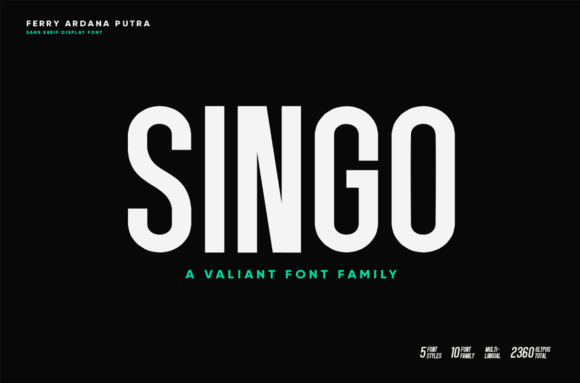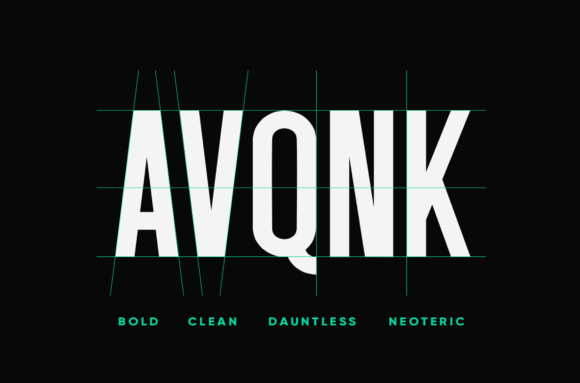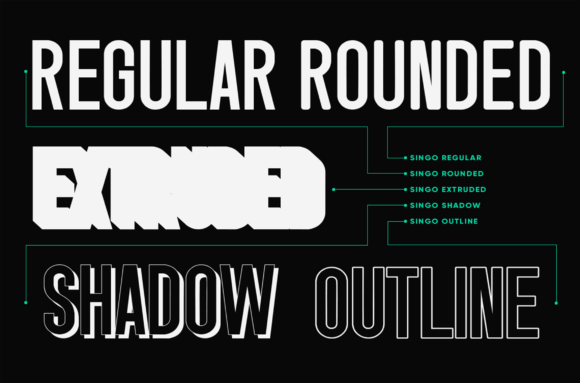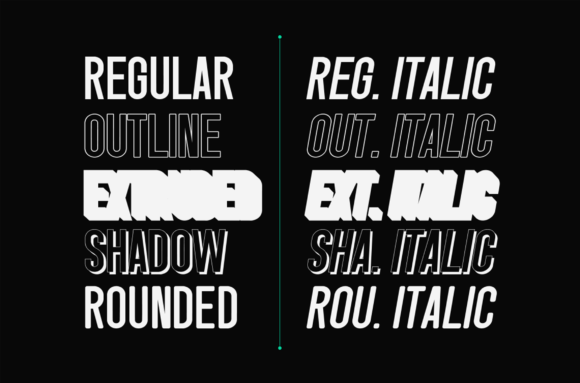
Singo Font: A Bold Sans Serif for Logo Design & Modern Branding
About the Singo Font
The Singo Font is here to transform your projects with its distinctive character and style. Singo is a valiant font family and extraordinary sans serif. Singo itself literally means Lion in Indonesia, which is a strong and gallant animal just like this typeface. It has proportion of hard lines and smooth curves. Singo works great in any branding, logos, magazines, films, posters, websites, etc.